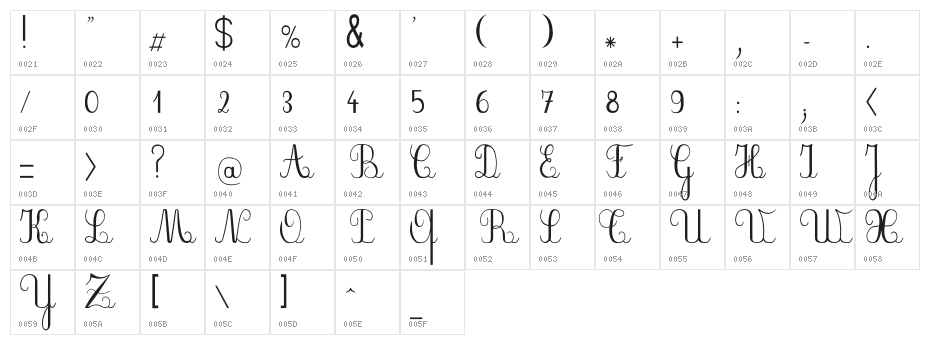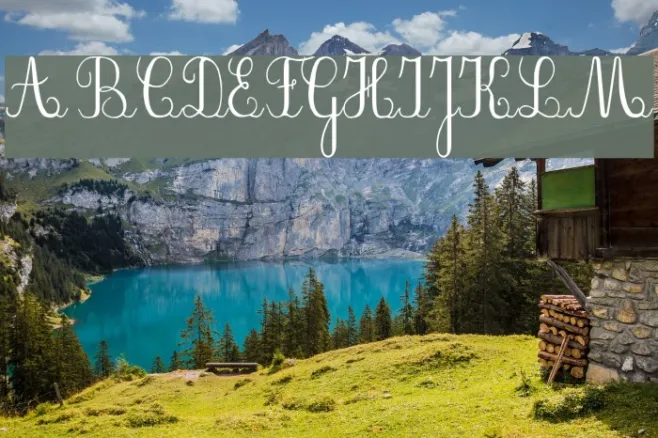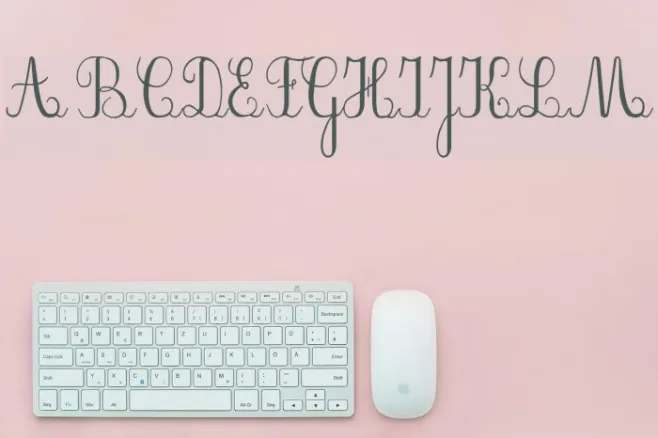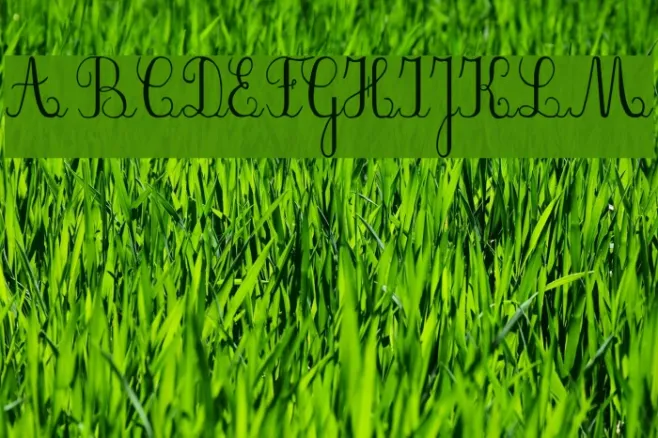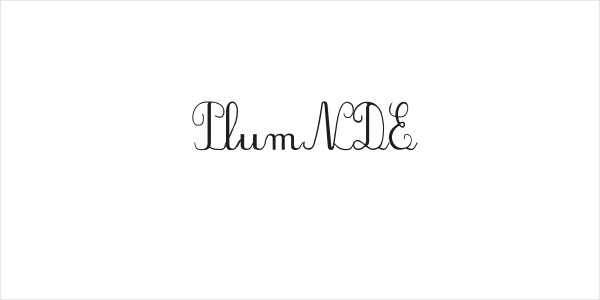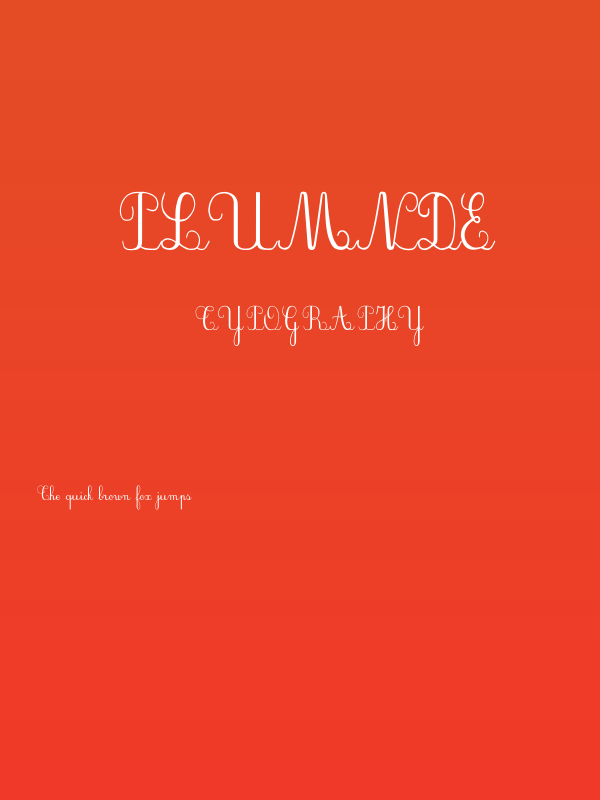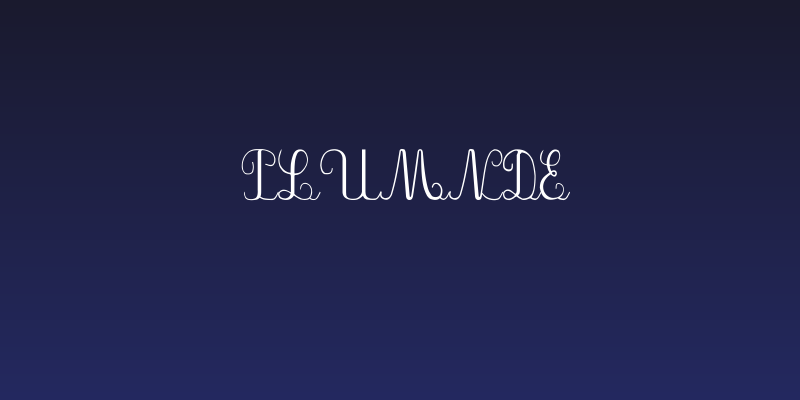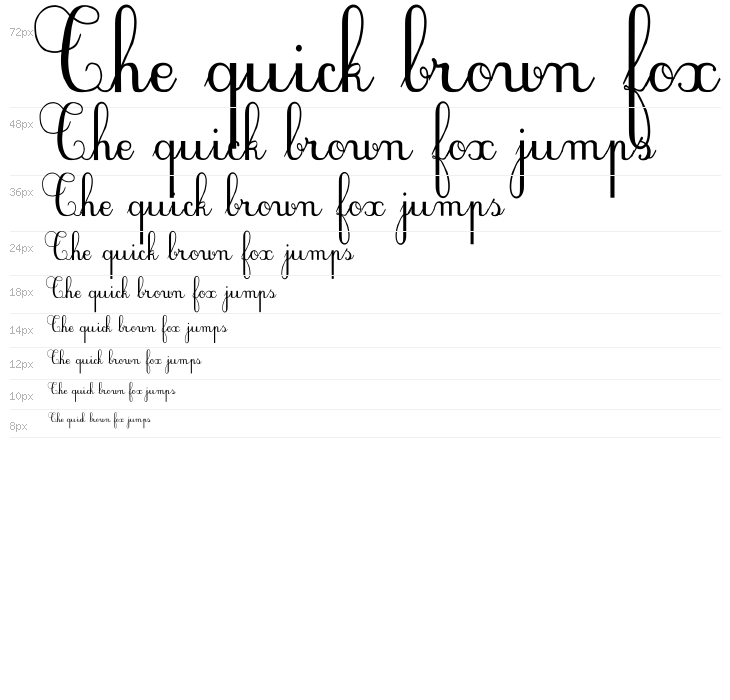
PlumNDE Font
PlumNDE Description
This font features an elegant and decorative style with a script-like appearance. The uppercase letters are characterized by intricate loops and flourishes, giving them a sophisticated and artistic look. The lowercase letters maintain a similar decorative style, with smooth curves and a flowing design. The numerals are more straightforward, offering a contrast to the ornate letters. Special characters are designed to match the overall aesthetic, with unique and stylish forms. This font combines a sense of classic elegance with a modern twist, making it suitable for various creative applications.